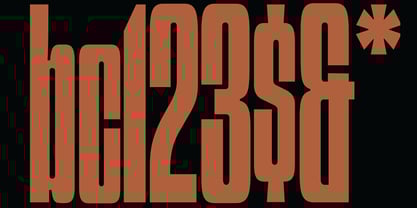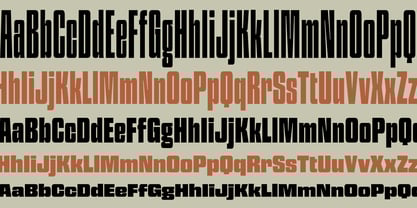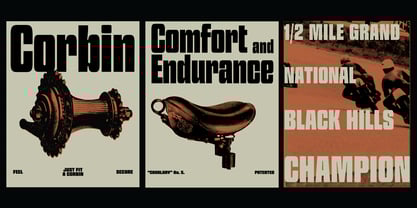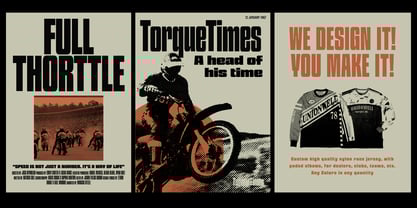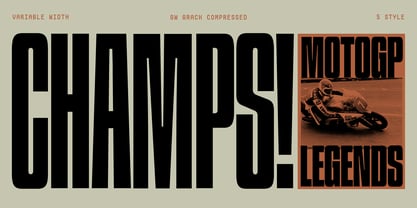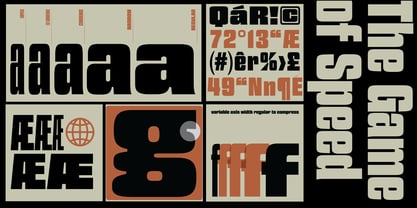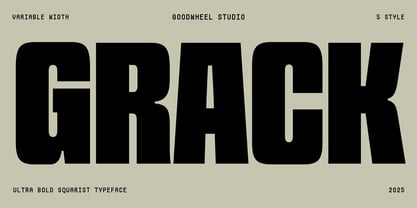
GW Grack
by Goodwheel Studio
The GW Grack Font Family was designed by Ilham Herry and published by Goodwheel Studio. GW Grack contains 6 styles and family package options.
Ultrabold Squarist typefaces with variable width compress to regular. a typeface with a bold and modern design, featuring very thick characters and rigid geometric shapes.
Designers: Ilham Herry
Publisher: Goodwheel Studio
Foundry: Goodwheel Studio